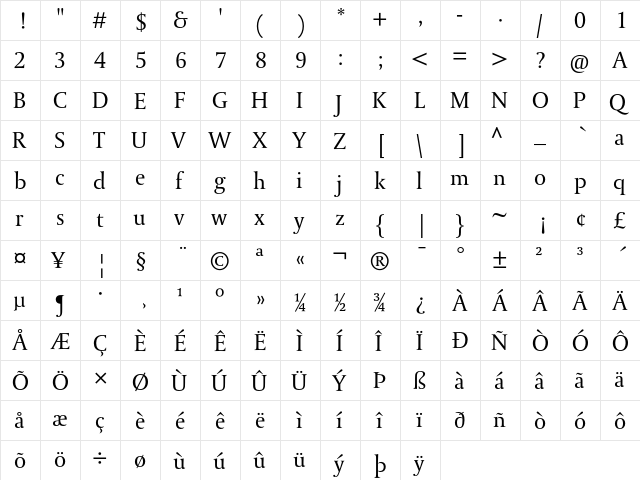
DTL Paradox T Regular
Design Context for DTL Paradox Typeface
DTL Paradox is a composed and adaptable typeface that performs quietly and consistently across a wide range of design contexts.